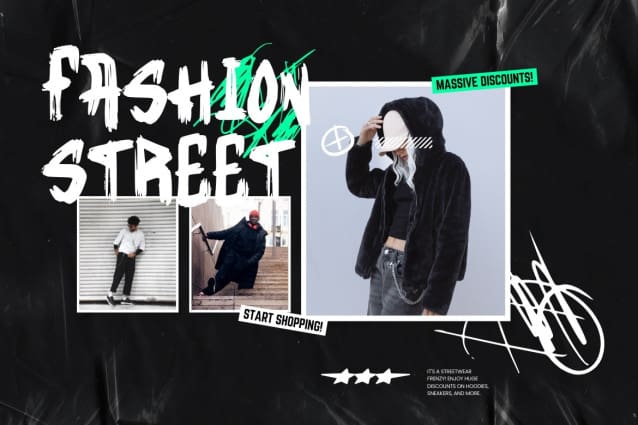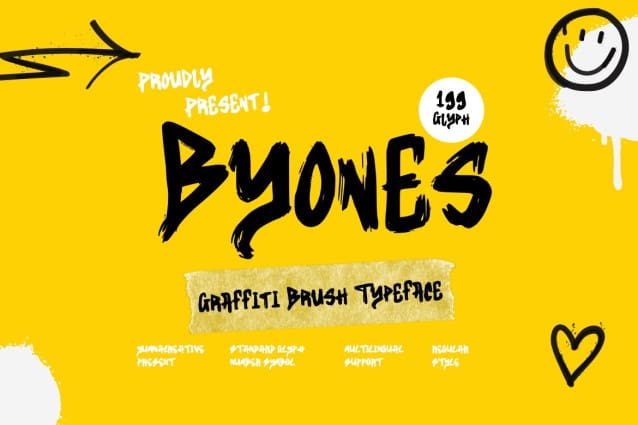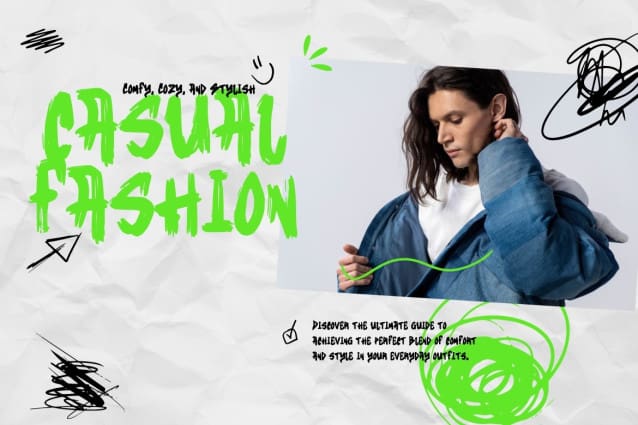
Byones Graffiti Brush Font
Byones Graffiti Brush Font is a high-quality paintbrush designed for street artists. It features a sturdy and flexible bristle tip that helps create bold, sharp lines and smooth strokes, perfect for graffiti and street art. The brush is easy to use and ideal for adding detailed touches to murals or designs.